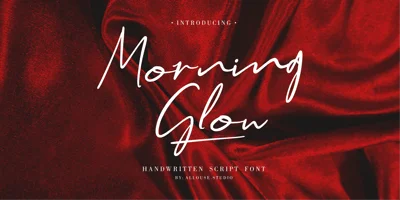
Morning Glow Font
Morning Glow Font is ideal for sunrise wellness brands, early morning coffee shop marketing, dawn yoga studio identities, breakfast restaurant promotions, golden hour photography branding, peaceful meditation retreat communications, fresh start lifestyle campaigns, and optimistic inspirational designs. This luminous typeface brings dawn serenity, gentle warmth, and hopeful sophistication to any project celebrating the peaceful beauty of morning light and the inspiring promise of new beginnings.
What makes Morning Glow Font exciting is its extraordinary ability to capture the essence of dawn's first light through letterforms that seem to radiate with the soft golden warmth and peaceful energy of sunrise moments. The font features gently illuminated character shapes with warm proportions, soft spacing that creates visual tranquility, and luminous details that evoke the gradual emergence of morning light and the serene beauty of daybreak. Its peaceful character embodies the hope and renewal found in each new day's beginning, making it perfect for brands that want to communicate optimism, freshness, and the inspiring beauty of morning rituals and peaceful awakening experiences.
The Morning Glow Font family typically includes light and regular weights with softly glowing uppercase and lowercase letters, warm numerals, and comprehensive punctuation marks that maintain the font's luminous appeal and peaceful sophistication. The design emphasizes gentle warmth while providing practical typography options for contemporary wellness and lifestyle communication applications that require both inspirational beauty and readable functionality.
Whether you're creating wellness brand identities or developing morning-themed marketing materials, Morning Glow Font provides unmatched peaceful authenticity and luminous appeal. This typeface excels in applications where its glowing character can evoke feelings of hope and gentle energy. Its serene aesthetic makes it particularly effective for wellness centers, coffee shops, and lifestyle brands that want to communicate peace and fresh beginnings. The font's luminous presence helps establish emotional comfort while ensuring memorable recognition through typography that celebrates the eternal beauty of Morning Glow Font dawn light and peaceful renewal.